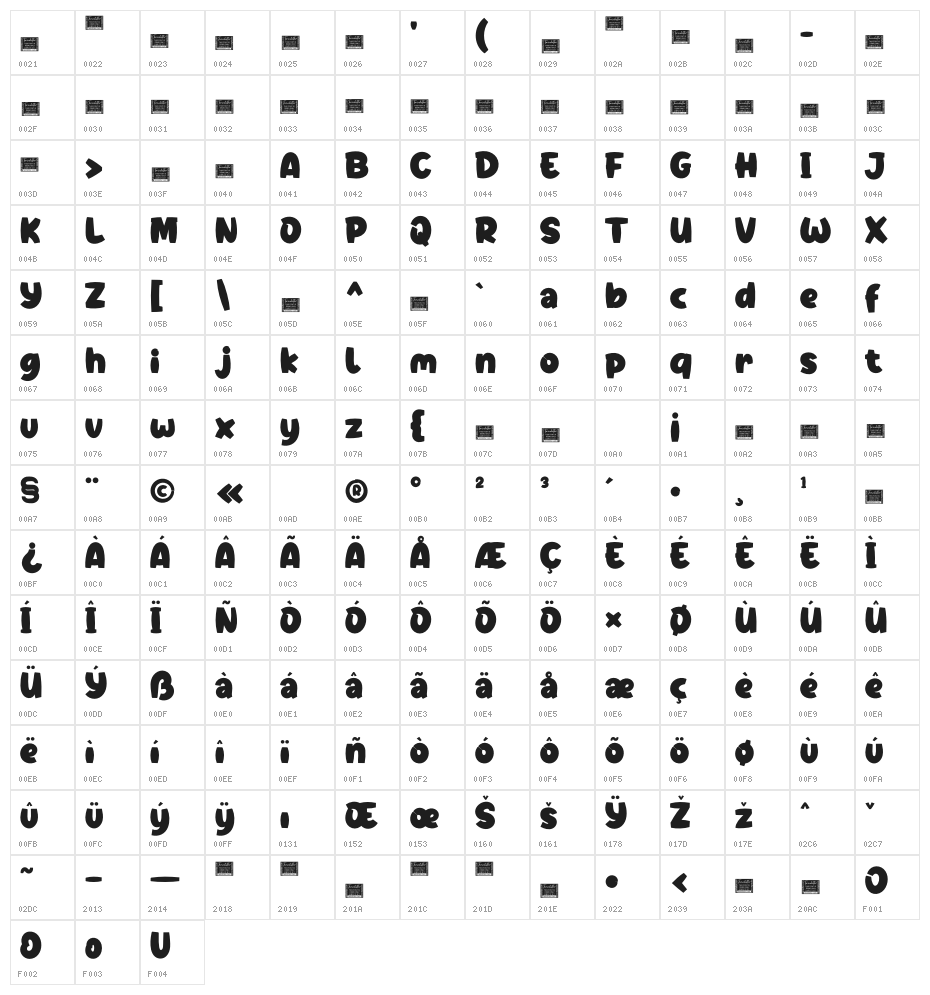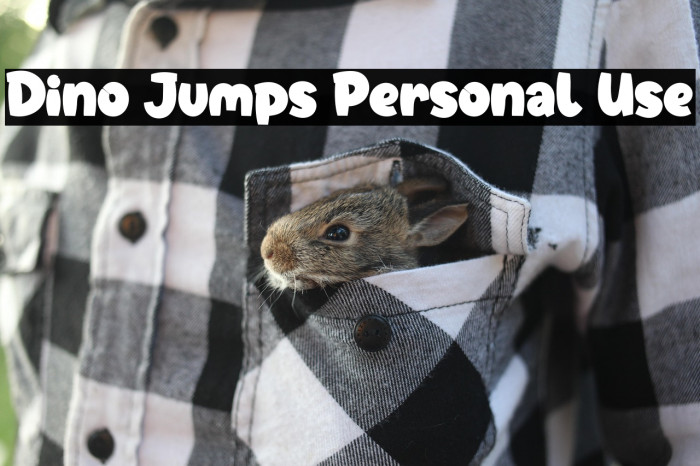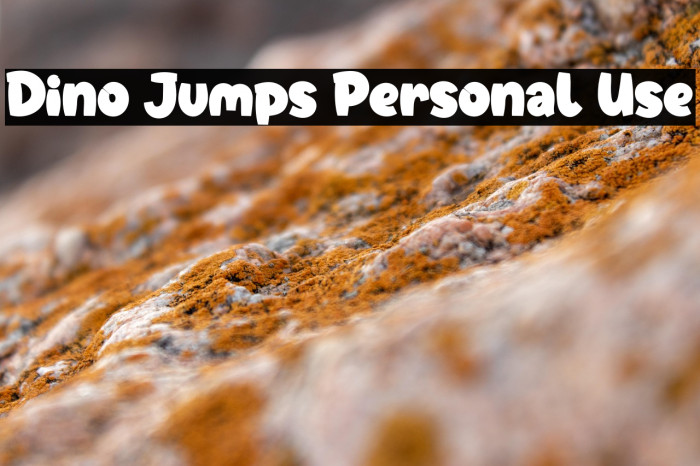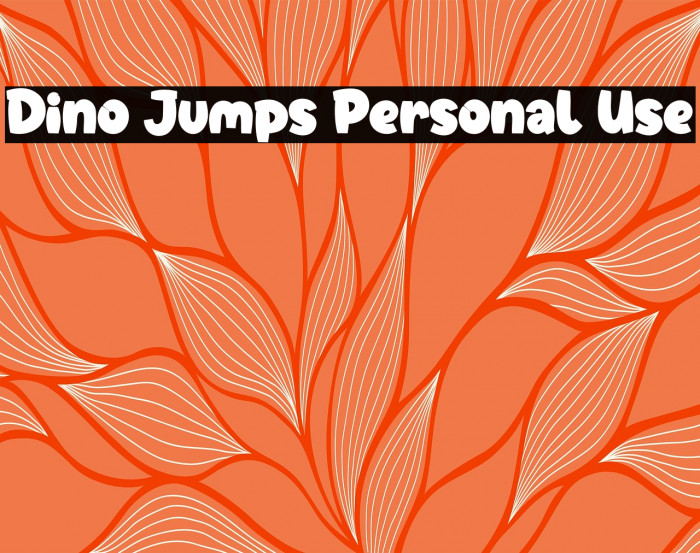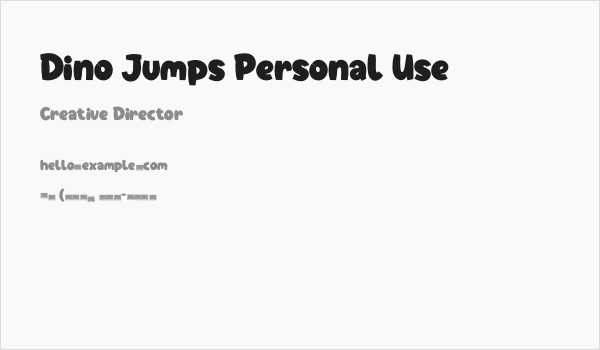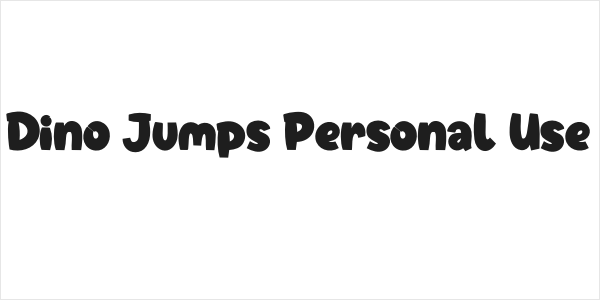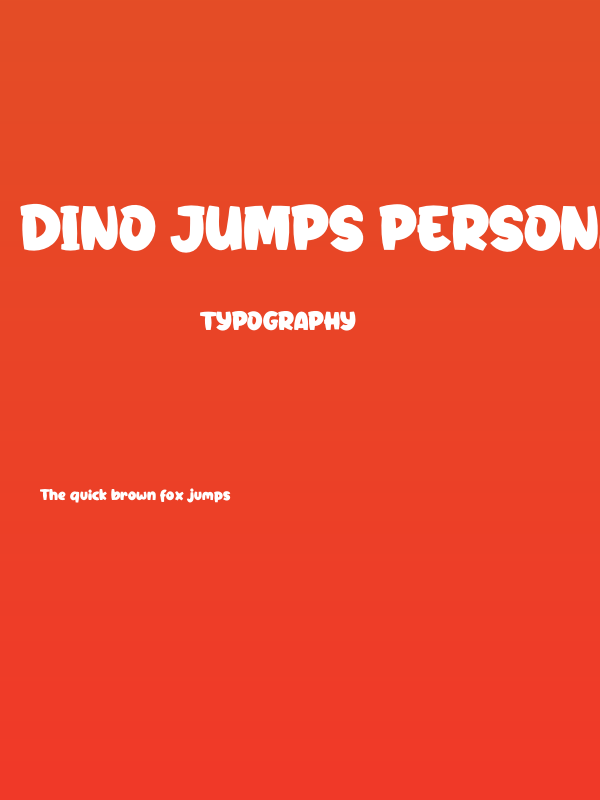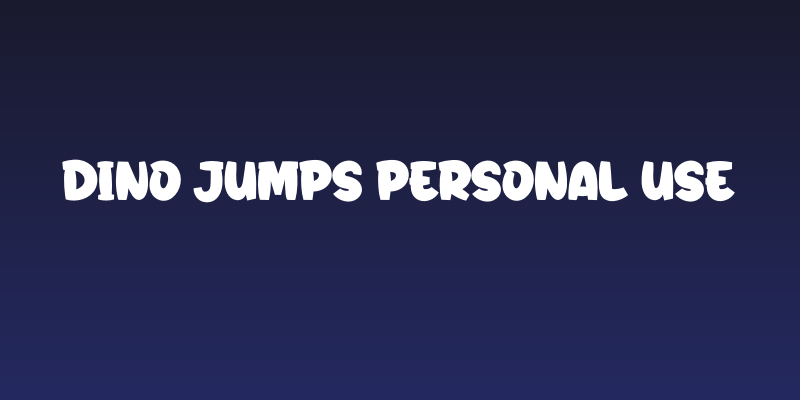
Dino Jumps Personal Use Font
Dino Jumps Personal Use Description
This playful and bold font features thick, rounded characters with a whimsical and cartoonish style. The uppercase and lowercase letters maintain a consistent weight, giving the font a cohesive look. The characters are slightly irregular, adding to the playful nature, and the overall design is reminiscent of hand-drawn lettering. The font's boldness makes it stand out, while the rounded edges soften its appearance, making it suitable for fun and informal applications.
| Overall Style | Playful, Cartoonish |
| Proposed Projects | Ideal for children's books, playful branding, party invitations, and comic-style graphics. |